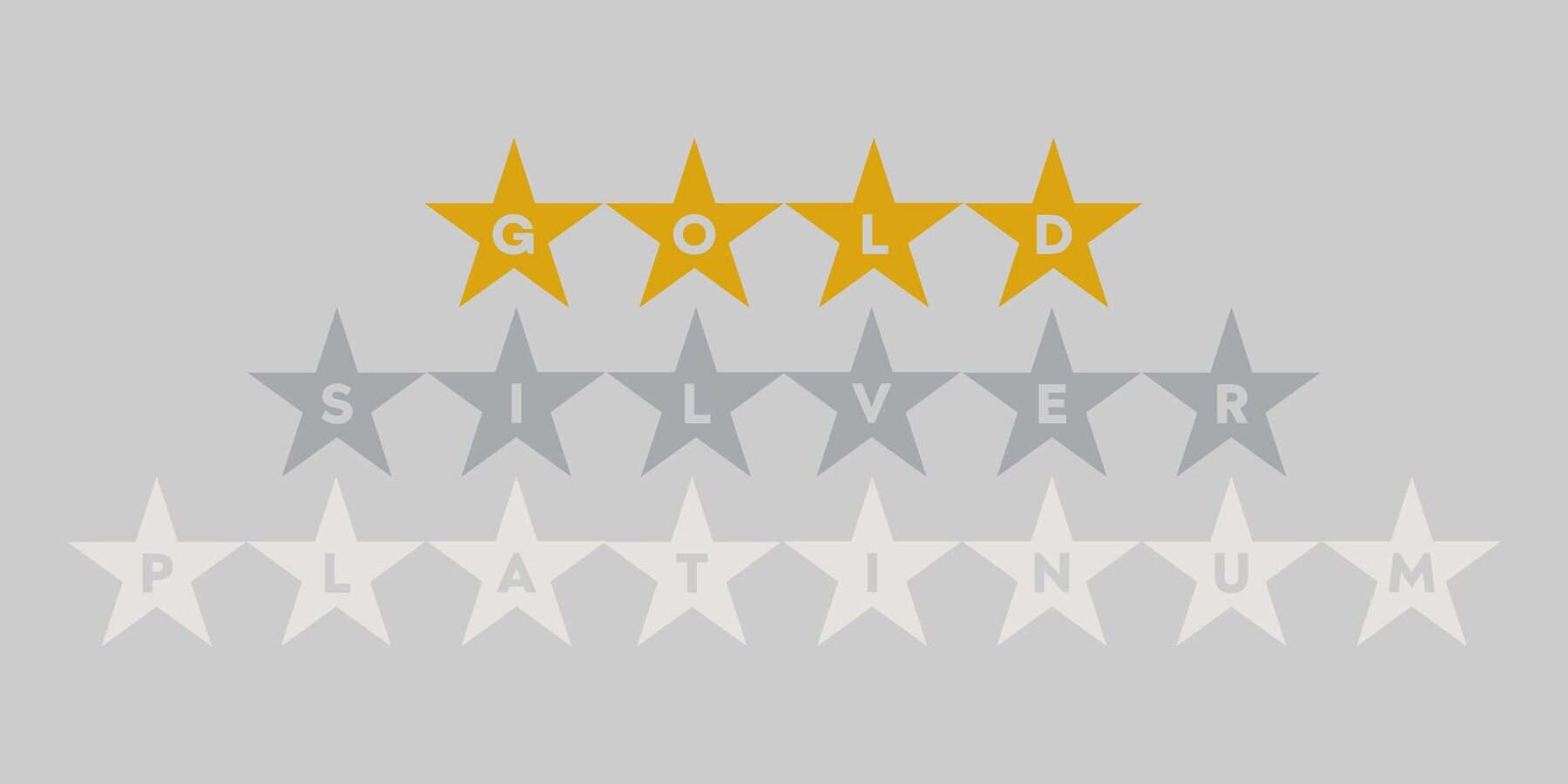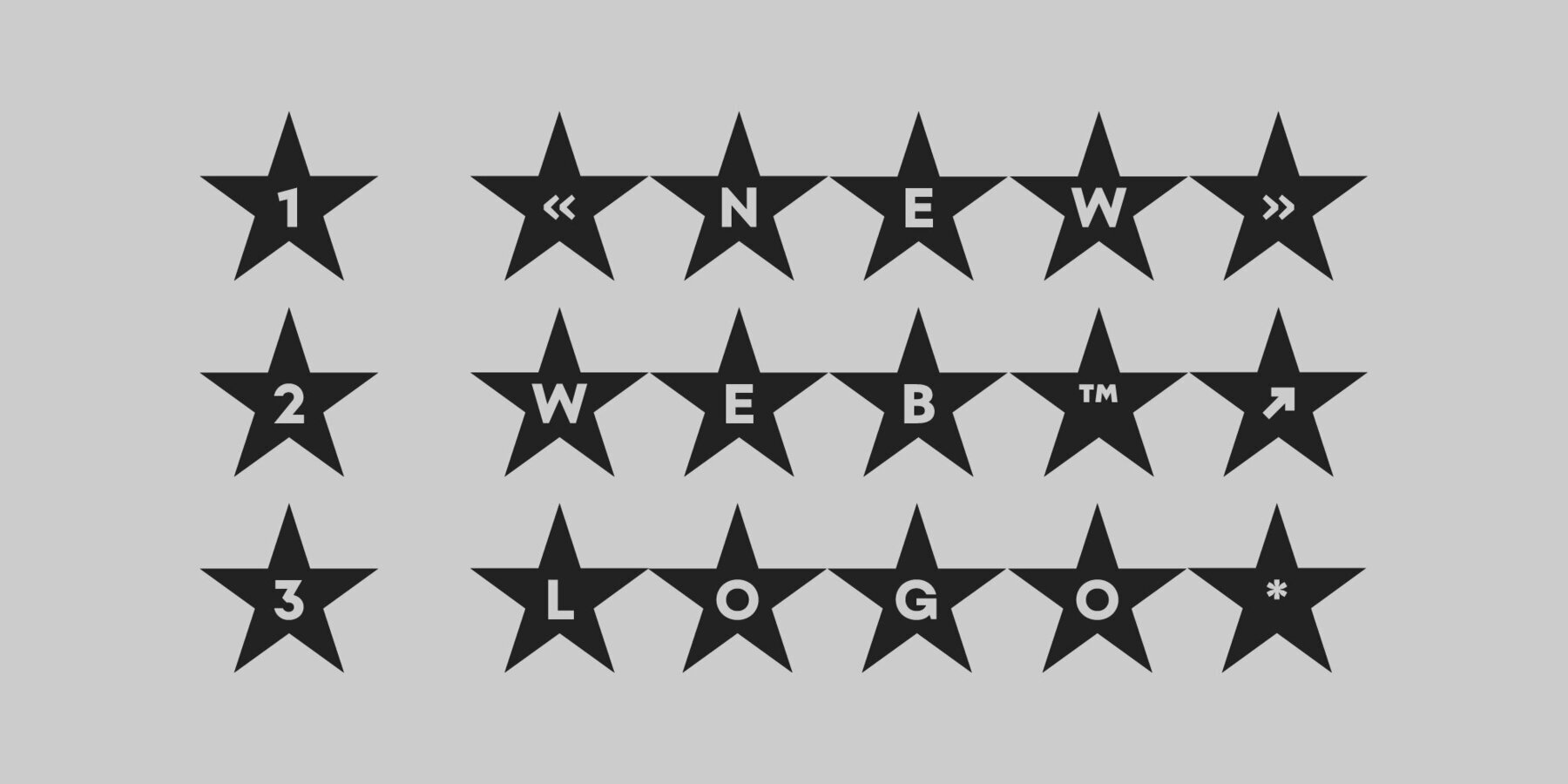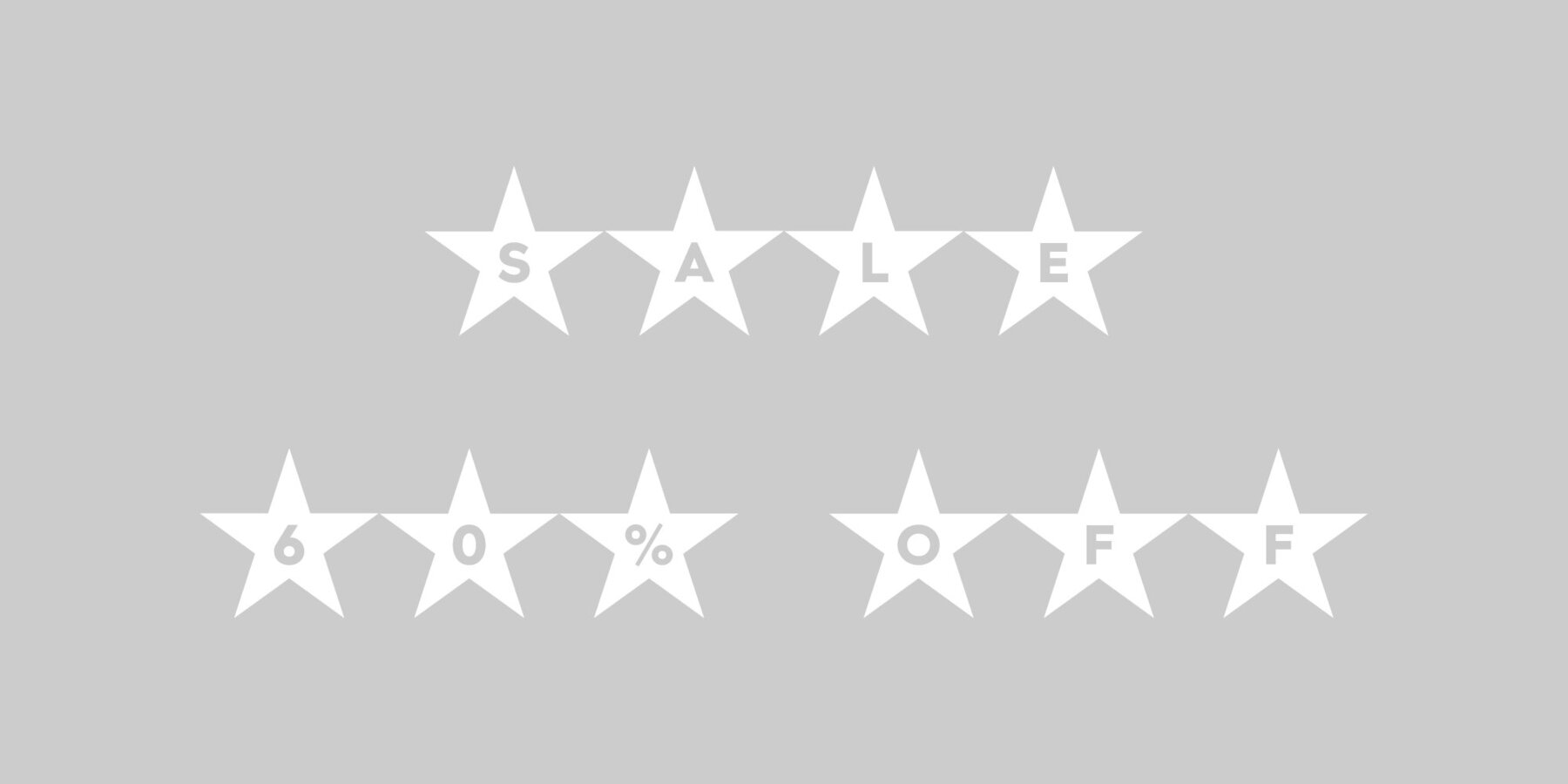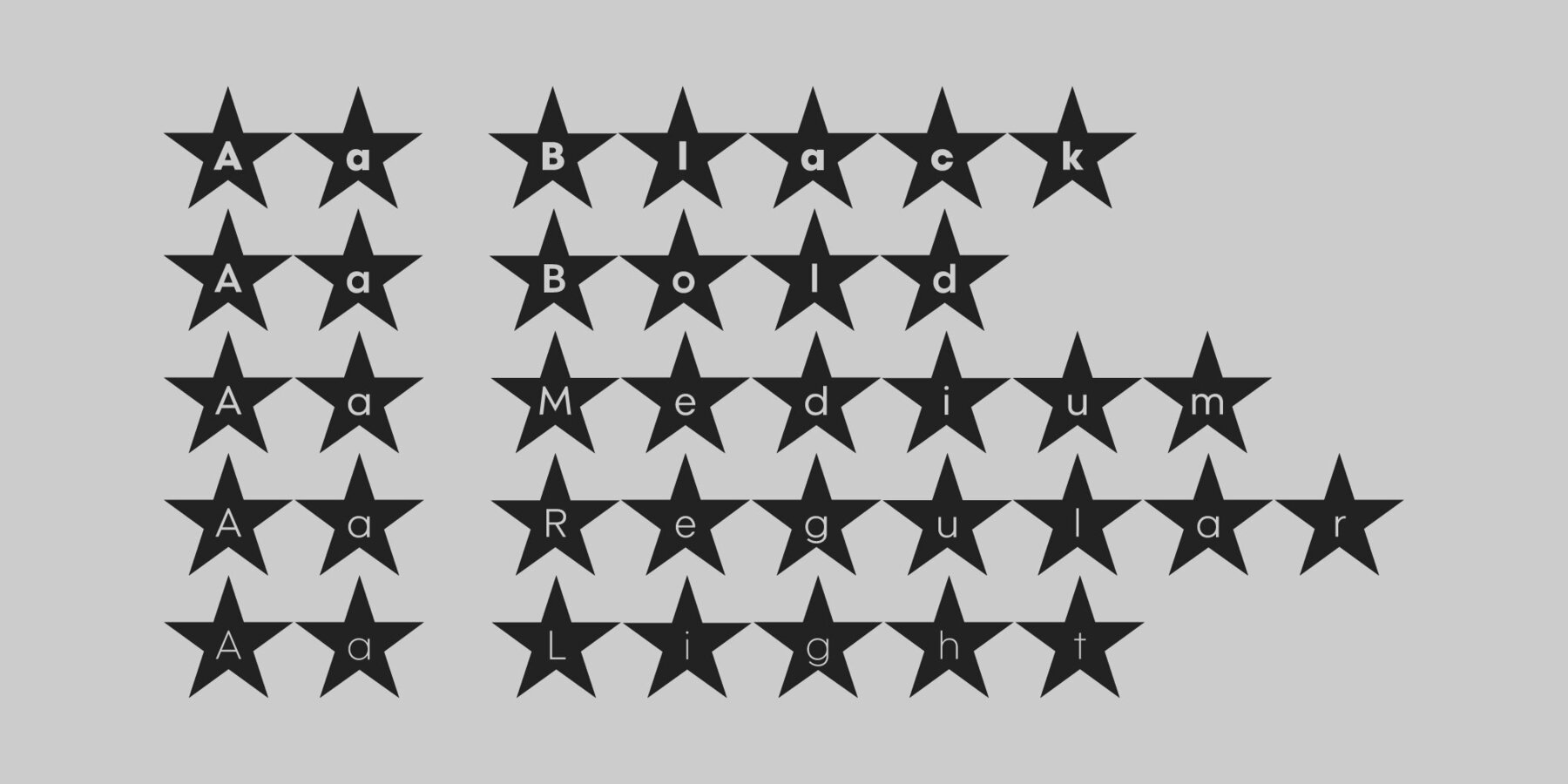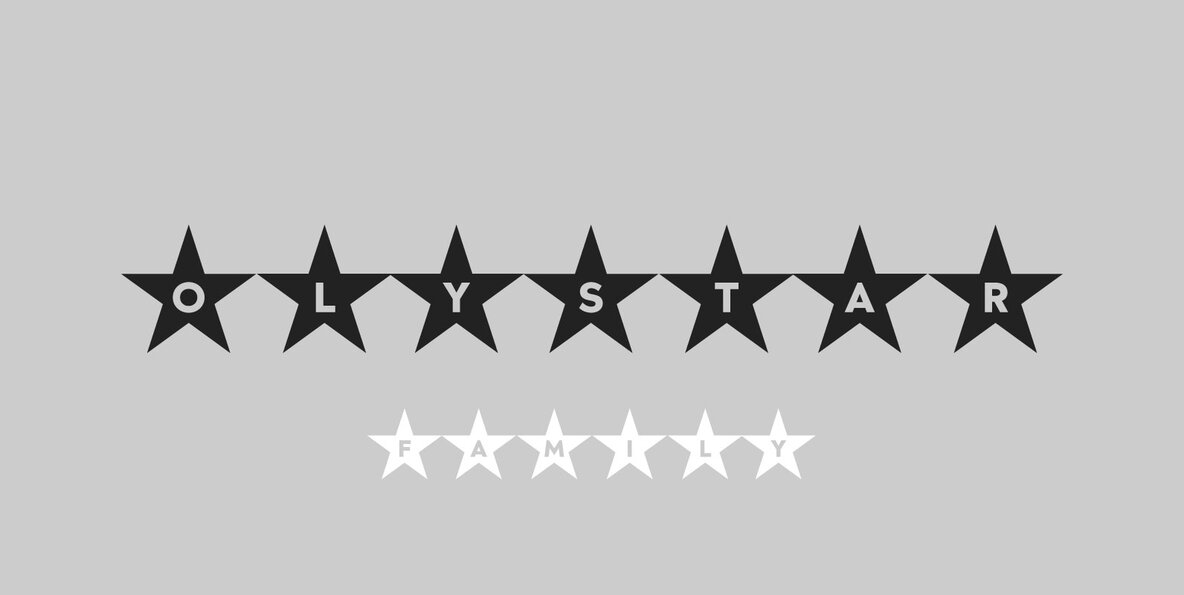
Olystar Font
Unleash the power of modern typography with Olystar, a captivating font family meticulously crafted on the foundation of the beloved Olyford font. Olystar boasts 5 exquisite weights and more than 400 glyphs in each style. This family is perfect for logotypes, advertising, packaging, corporate identities, and more.
Savchuk Mykola began his career as a graphic designer. Over time, he had a desire to create a font that would reflect his view of typography. ‘They say that all ingenious things are simple, although unique. In my future projects, I want to reflect simplicity on the one hand and uniqueness on the other, providi...